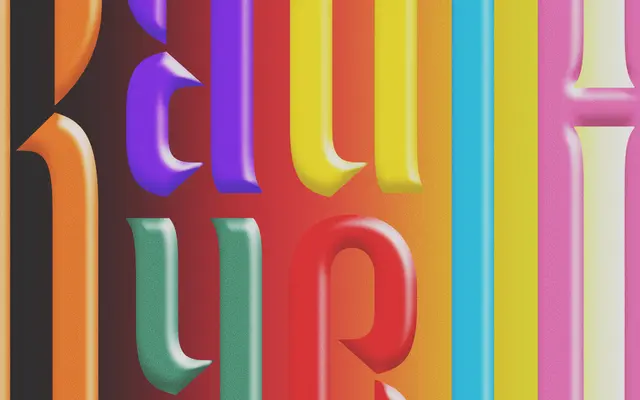
Rayuela
A condensed stencil display face by Valerio Monopoli with a built-in stacking system that lets characters be layered in pairs using contextual OpenType logic.
Named after Julio Cortázar's novel and inspired by the children's game of hopscotch, the typeface uses a rhythmic semi-gothic structure in which uppercase and lowercase characters can stack vertically through OpenType contextual alternates. A single weight ships with 525 glyphs covering Latin Extended A, alongside features including old-style figures, single-storey alternates and fractions. Suited to posters, packaging and any display context where stacked or layered lettering is the primary effect.
A tall, condensed stencil-like display face with semi-gothic characteristics and a structural stacking system; purpose-built for large-scale display rather than text use.